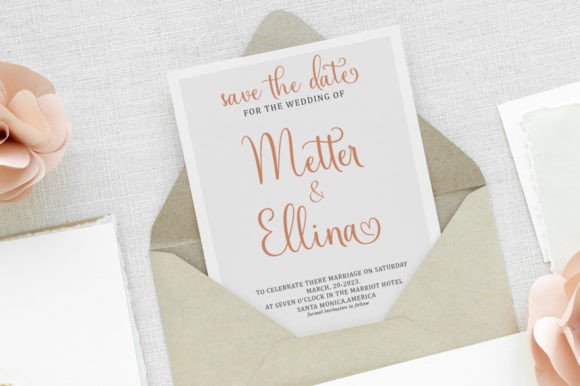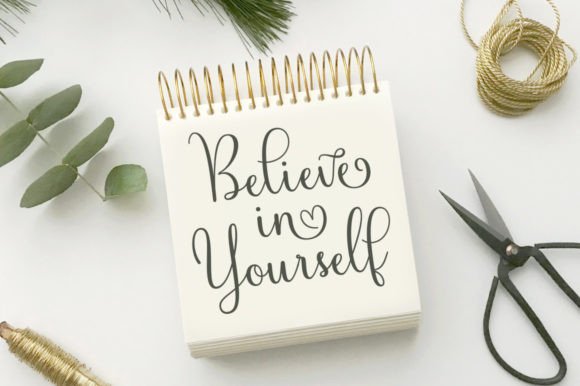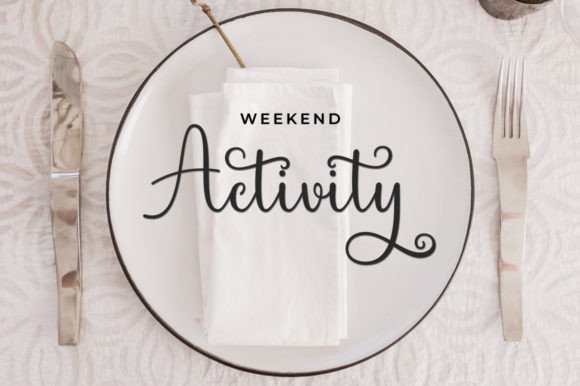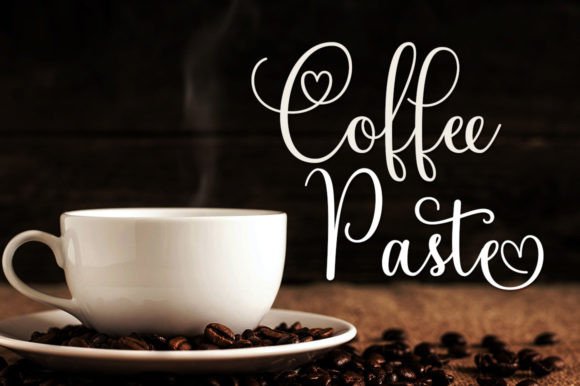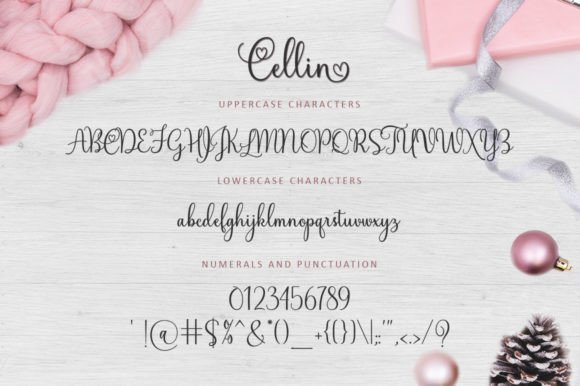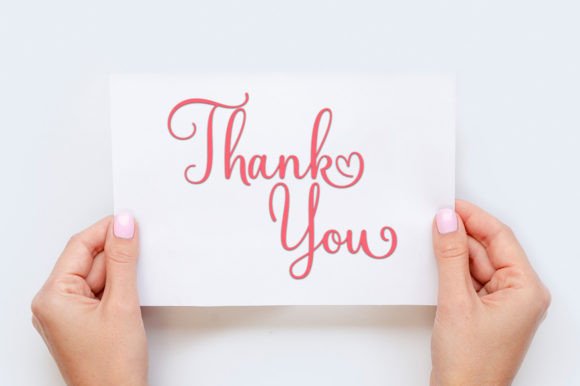
Introducing Cellin Font: Elevate Your Designs with Elegance and Sophistication
In the world of typography, a font can make or break a design. It’s the perfect blend of style, elegance, and personality that brings a project to life. If you’re on the hunt for a font that exudes smoothness, elegance, and a flowing script, look no further than Cellin Font. This stunning handwritten font is about to become your new favorite, offering a unique and timeless style that’s sure to captivate your audience.
The Beauty of Cellin Font
Cellin Font is a masterpiece of modern typography, boasting a smooth, elegant, and flowing script that’s perfect for a wide range of projects. From creative designs and crafts to digital and print media, this font is versatile and adaptable, making it an excellent addition to your font library. Its unique style is both classic and contemporary, ensuring that your designs stand out from the crowd while maintaining a sense of sophistication and refinement.
One of the standout features of Cellin Font is its PUA (Private Use Area) coding. This means that you can easily access all the glyphs and swashes, giving you complete creative control over your designs. With PUA coding, you can unlock the full potential of Cellin Font, experimenting with different combinations of letters, swashes, and glyphs to create truly spectacular designs.
Whether you’re a professional designer or a crafty DIY enthusiast, Cellin Font is the perfect choice for your next project. Its elegant and flowing script is ideal for:
- Logos and branding: Create a lasting impression with a custom logo that showcases your brand’s personality and style.
- Invitations and events: Add a touch of sophistication to your wedding invitations, party invites, or corporate events.
- Digital and print media: Use Cellin Font in your social media graphics, blog posts, or print materials to elevate your visual identity.
- Crafts and DIY projects: Add a personal touch to your handmade crafts, such as journals, planners, or gift tags.
Why Choose Cellin Font?
With so many fonts available, why choose Cellin Font? Here are just a few reasons why this font stands out:
- Unique and timeless style: Cellin Font offers a distinctive script that’s both classic and modern, ensuring that your designs stay relevant for years to come.
- Elegant and sophisticated: This font exudes refinement and poise, making it perfect for high-end designs and luxury brands.
- Versatile and adaptable: Use Cellin Font in a wide range of projects, from digital media to print materials and crafts.
- PUA coded for easy access: Unlock the full potential of Cellin Font with PUA coding, giving you complete creative control.
Get Ready to Fall in Love with Cellin Font
If you’re looking for a font that will elevate your designs and add a touch of elegance and sophistication, look no further than Cellin Font. With its smooth, flowing script and PUA coding, this font is sure to become your new favorite. So why wait? Fall in love with Cellin Font and start creating spectacular designs that will leave a lasting impression.
In conclusion, Cellin Font is a must-have for designers and crafters looking for a unique and timeless font that exudes elegance and sophistication. Its versatility, adaptability, and PUA coding make it the perfect choice for a wide range of projects. So go ahead, give Cellin Font a try, and discover the difference it can make in your designs.